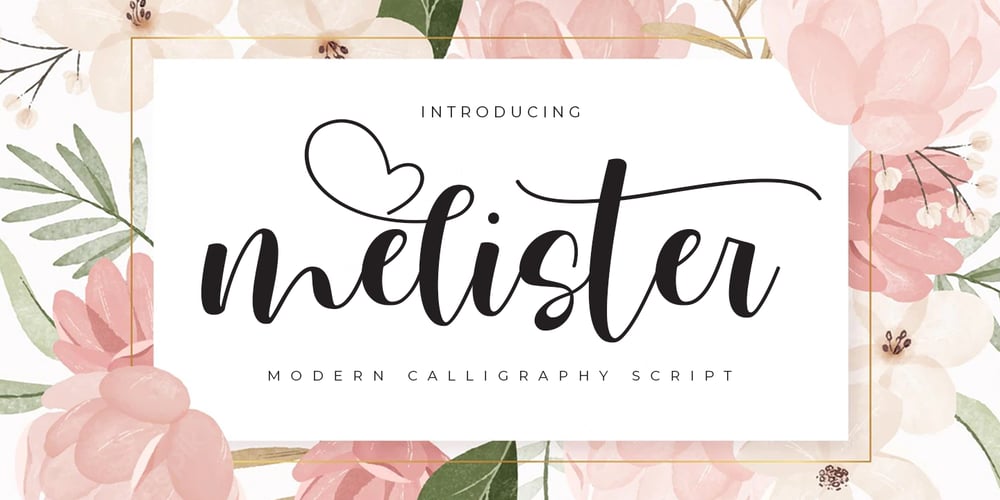
Melister Font Family was designed by Kurniadi Saputra and published by Cooldesignlab. Melister contains 1 styles and family package options. Melister font is the new elegant font! This font is specially made for those of you who need an elegant touch to design your next project with perfect and stunning results.Melister is equipped with lines such as hand strokes which are very suitable for various purposes. Such as title, signature, logo, correspondence, wedding invitation, letterhead, nameplate, label, newsletter, poster, badge, Branding, Greeting Card, etc. So beautiful on invitations like greeting cards, and more!!!Melister includes alternate glyphs and beautifully renders fonts including set styles, ligatures, etc. The Open Type feature can be accessed using intelligent Open Type programs such as Adobe Illustrator CS, Adobe Indesign & CorelDraw X6-X7 and Microsoft Word. And this font has provided PUA unicode (custom code font). so that all alternative characters can be easily accessed in full by craftsmen or designers.If you don’t have a program that supports OpenType features such as Adobe Illustrator and CorelDraw X Version, you can access all the alternative glyphs using Font Book (Mac) or Character Map (Windows).Thanks and love designing 🙂